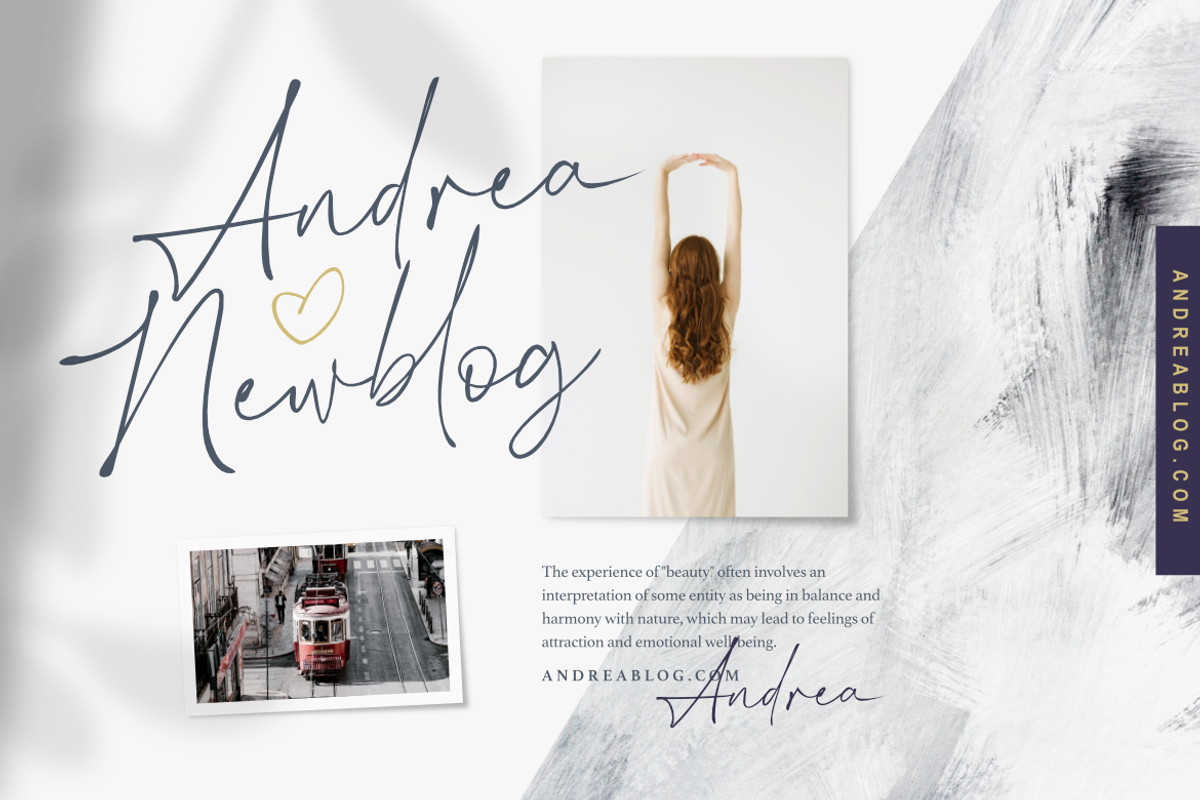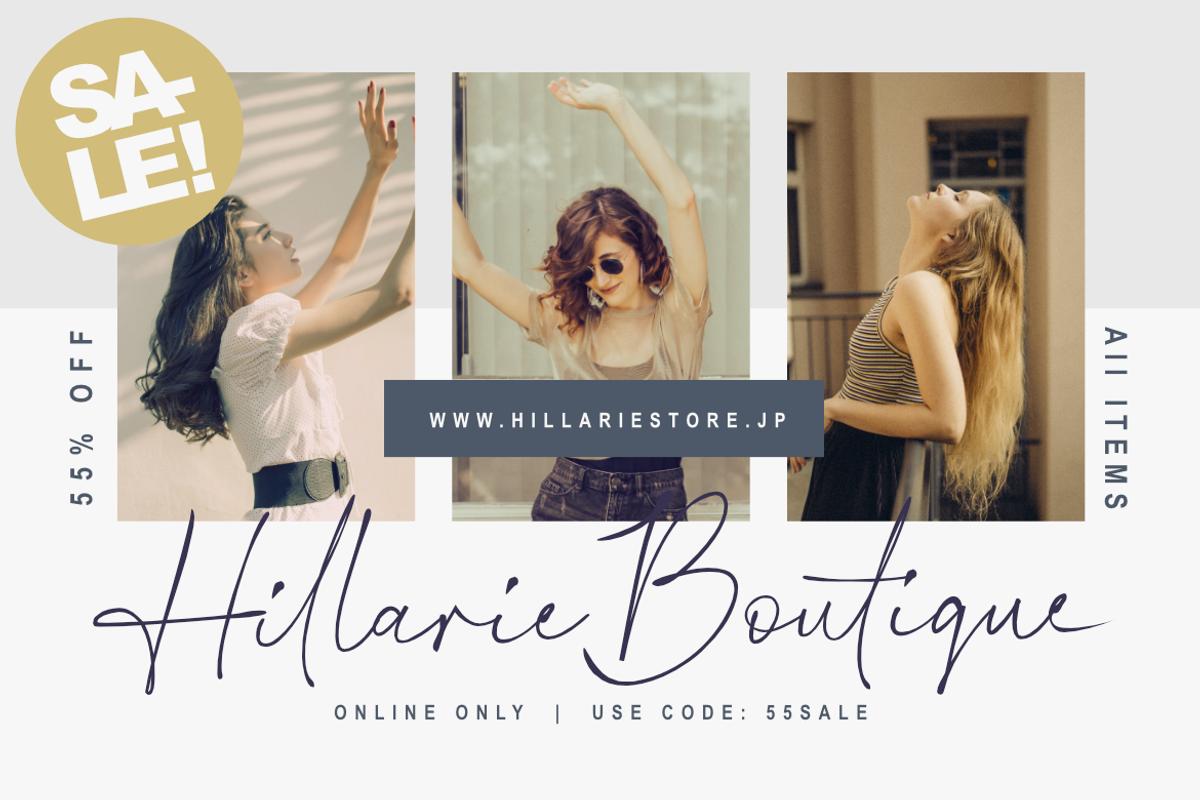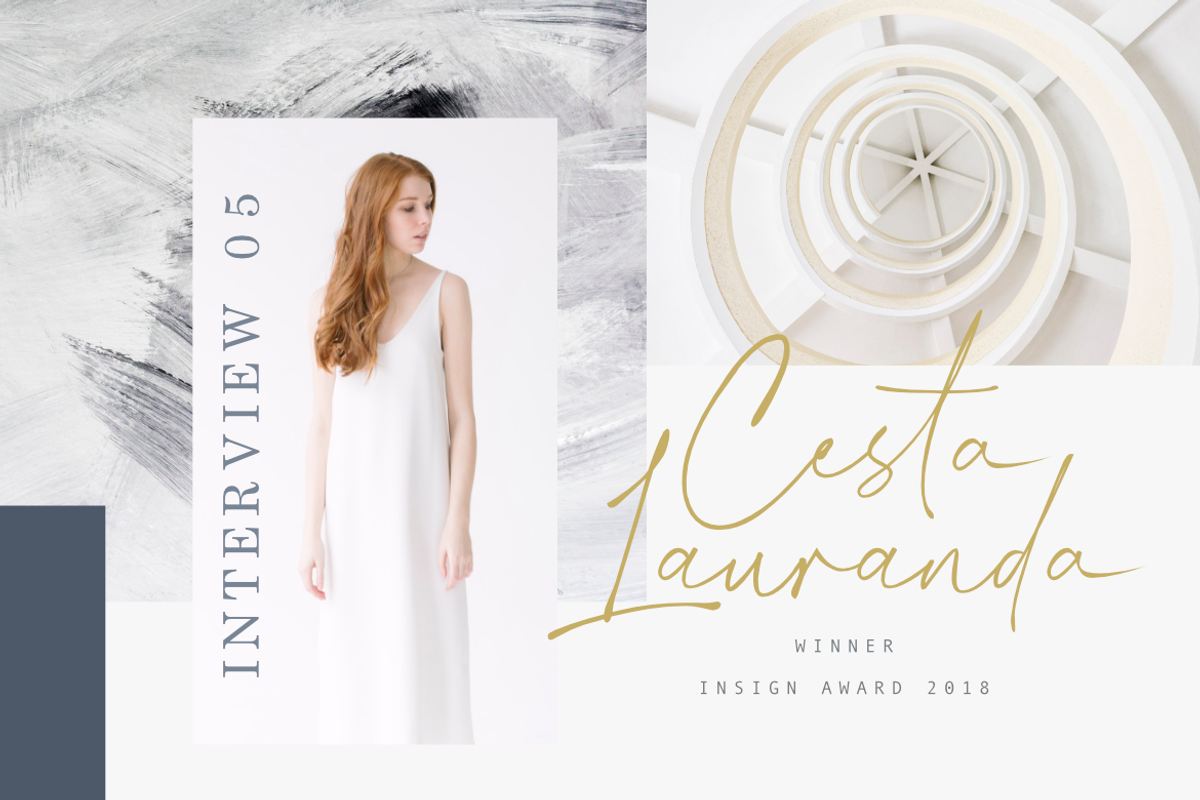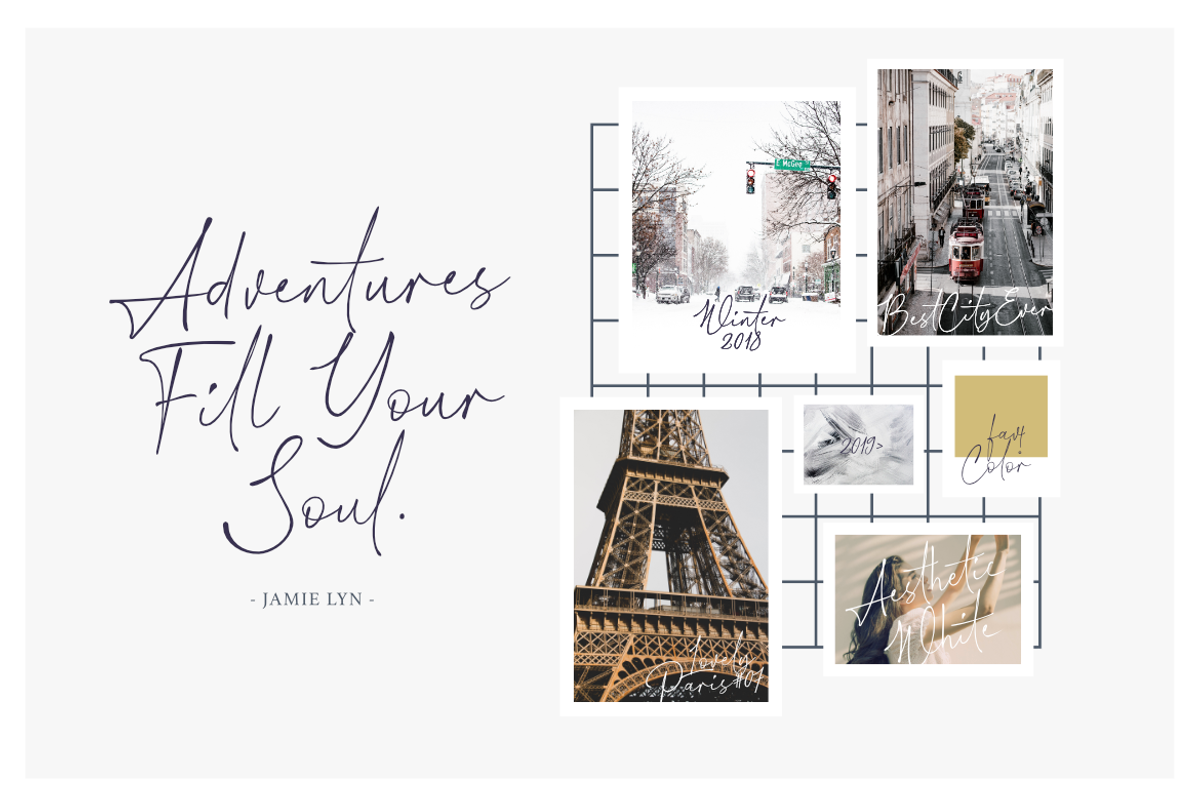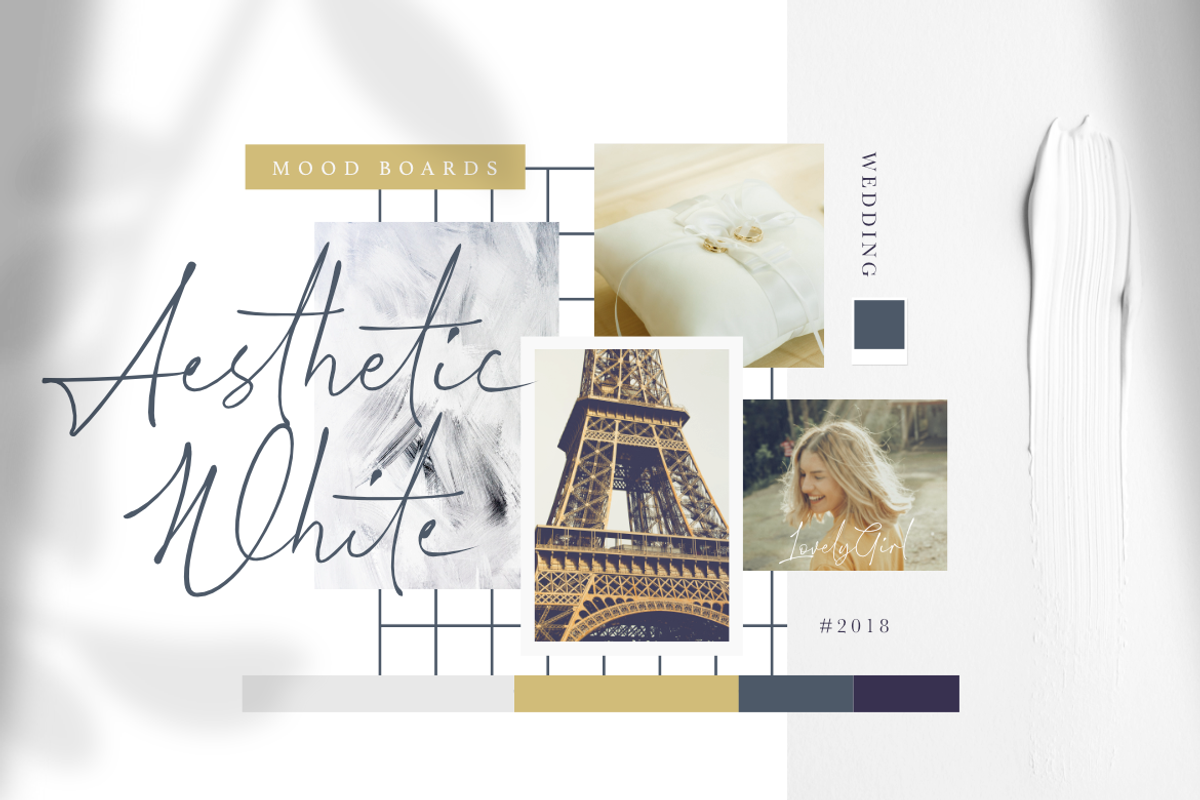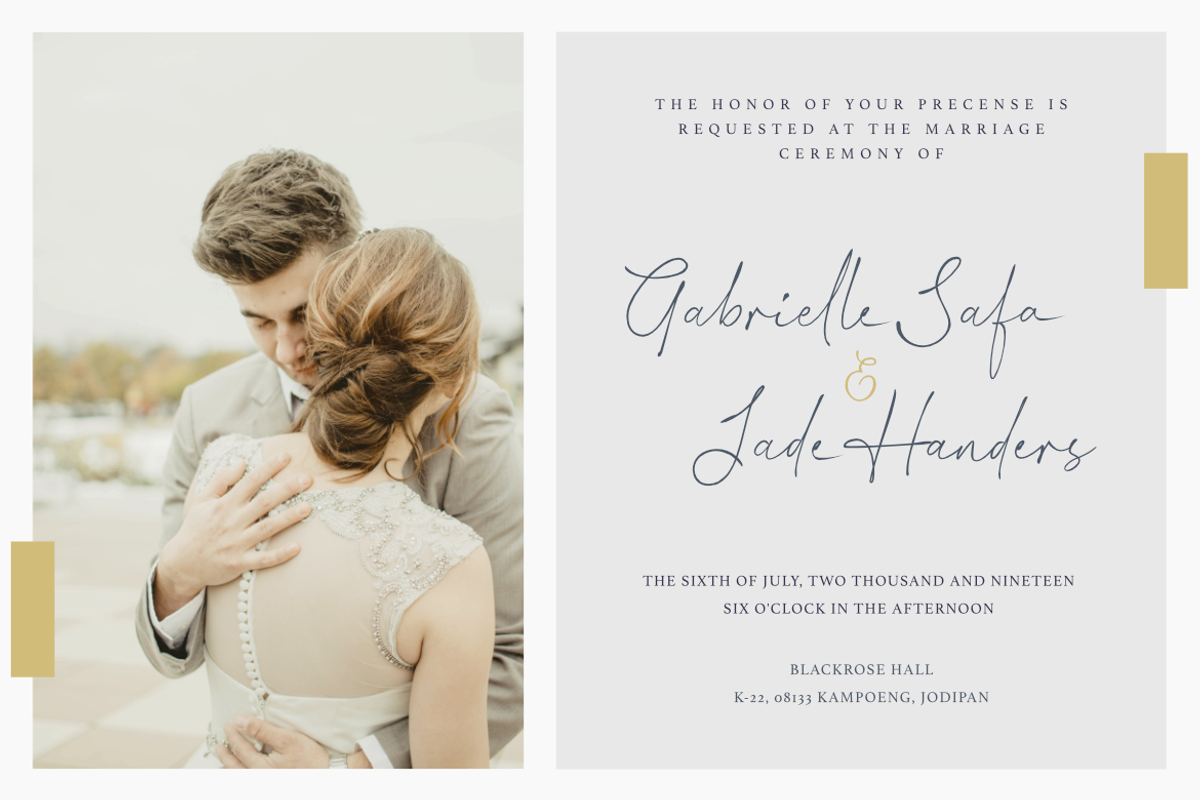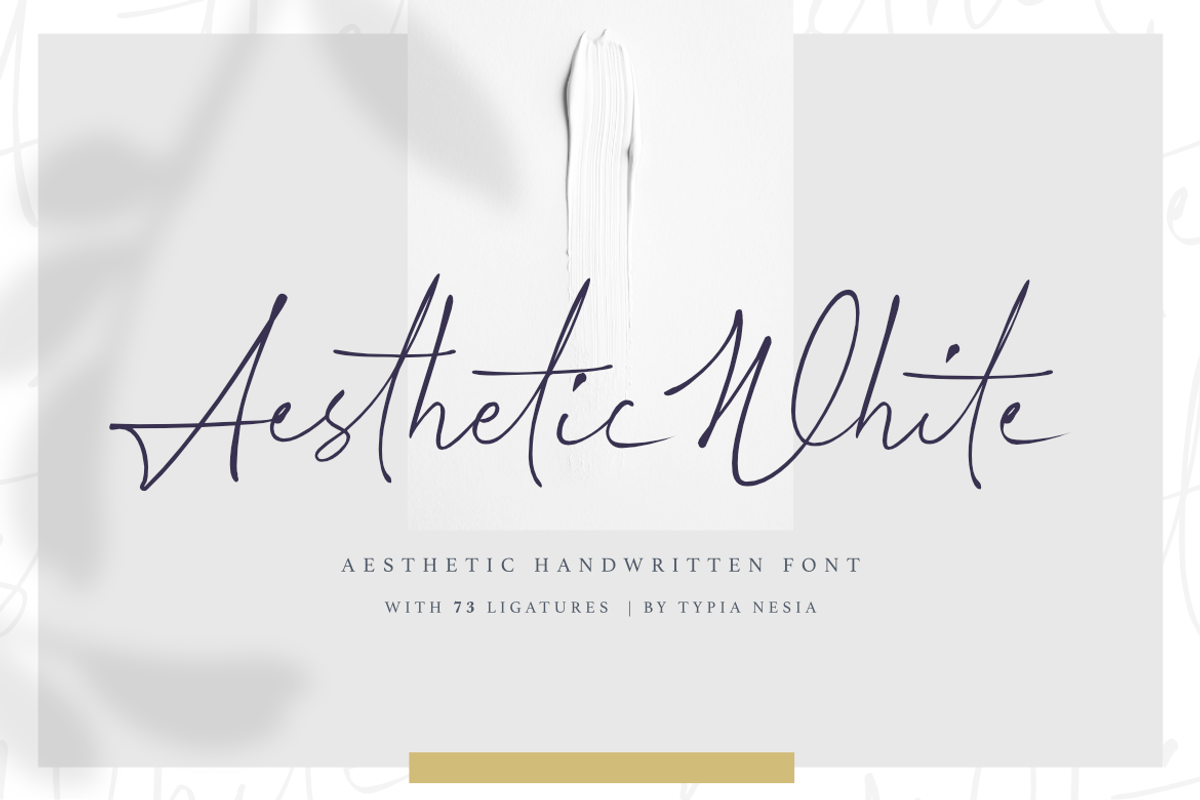
Aesthetic White | Handwritten Font
Say hello to Aesthetic White font - an elegant and aesthetic handwritten font with messy ink that make it natural and organic look. The unique flow and easy handwritten style makes it perfect for blogging, social media, branding, wedding invites, cards or simply use it in your next design project.
73 Ligatures, giving realistic handwritten style and organic looking.
- Includes a large range of Multilingual Characters.
- And other Glyphs variation of the OpenType features such as Standard Ligature and Stylistic Alternate.
- 73 Ligatures, giving realistic handwritten style and organic looking.
Aesthetic White | Handwritten Font by Typia Nesia fits naturally into Branding, posters, packaging, typography.